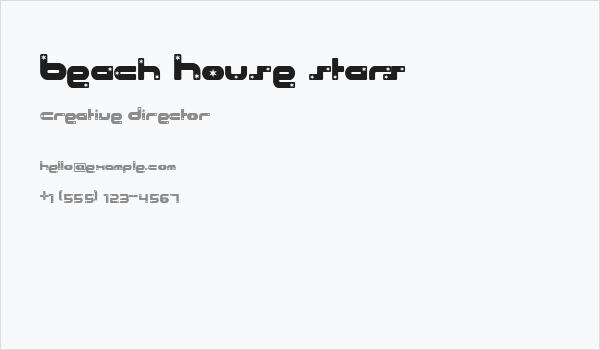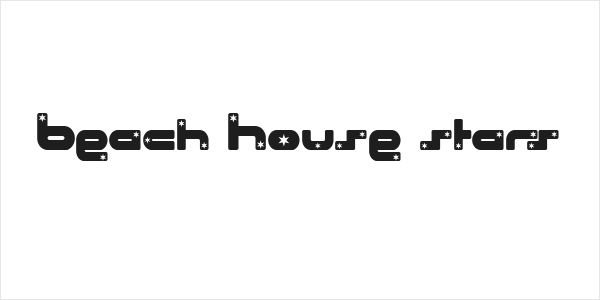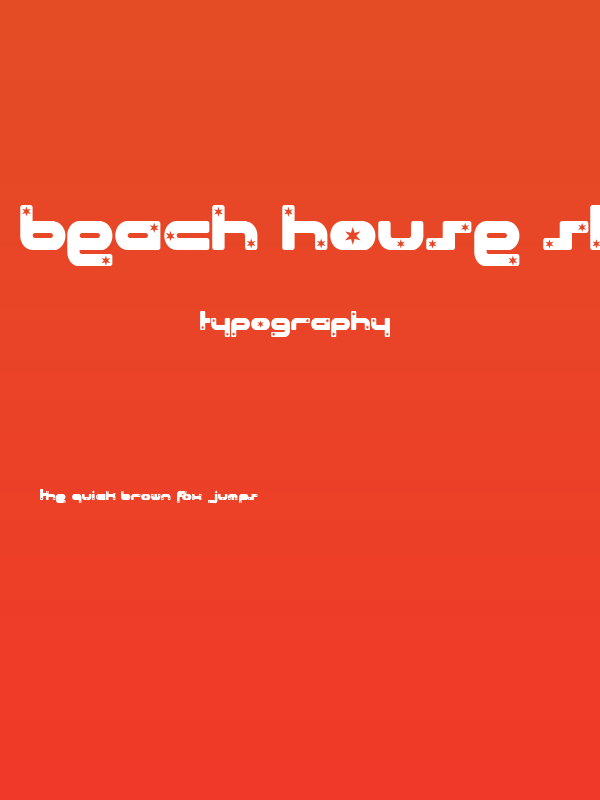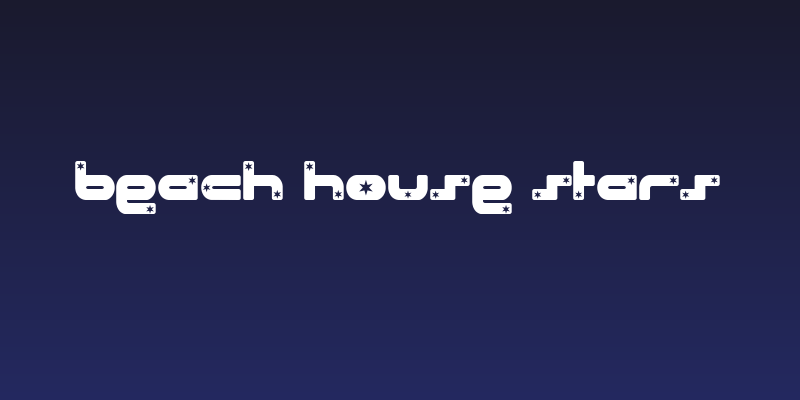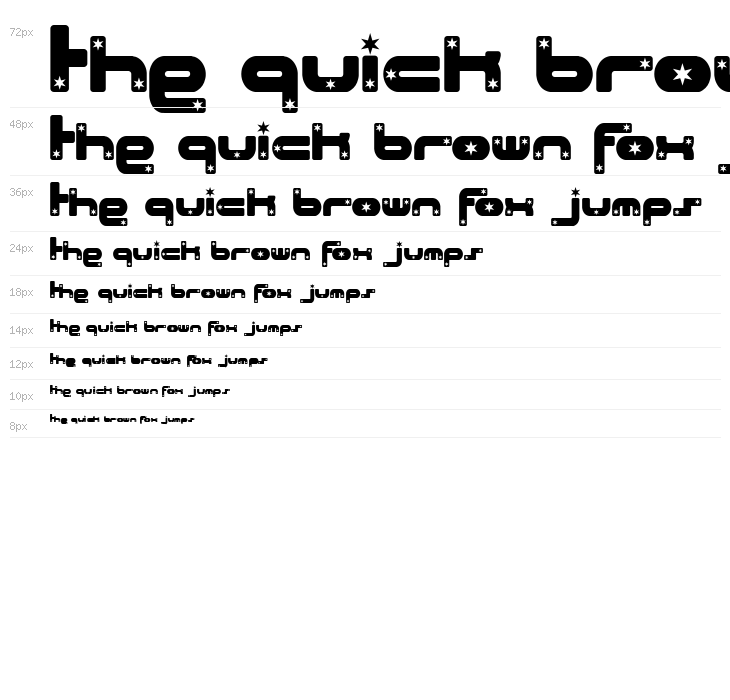
Beach House stars Font
Beach House stars Description
This playful and decorative font features bold, rounded characters adorned with star motifs. Each letter and number is filled with small star shapes, giving it a whimsical and fun appearance. The design is consistent across both uppercase and lowercase letters, as well as numbers and special characters. The font's thick strokes and rounded edges contribute to its friendly and approachable style, making it ideal for creative and informal projects. The star embellishments add a unique touch, making it stand out for specific thematic uses.
| Proposed Projects | Ideal for children's book covers, party invitations, playful branding, and themed event posters. |